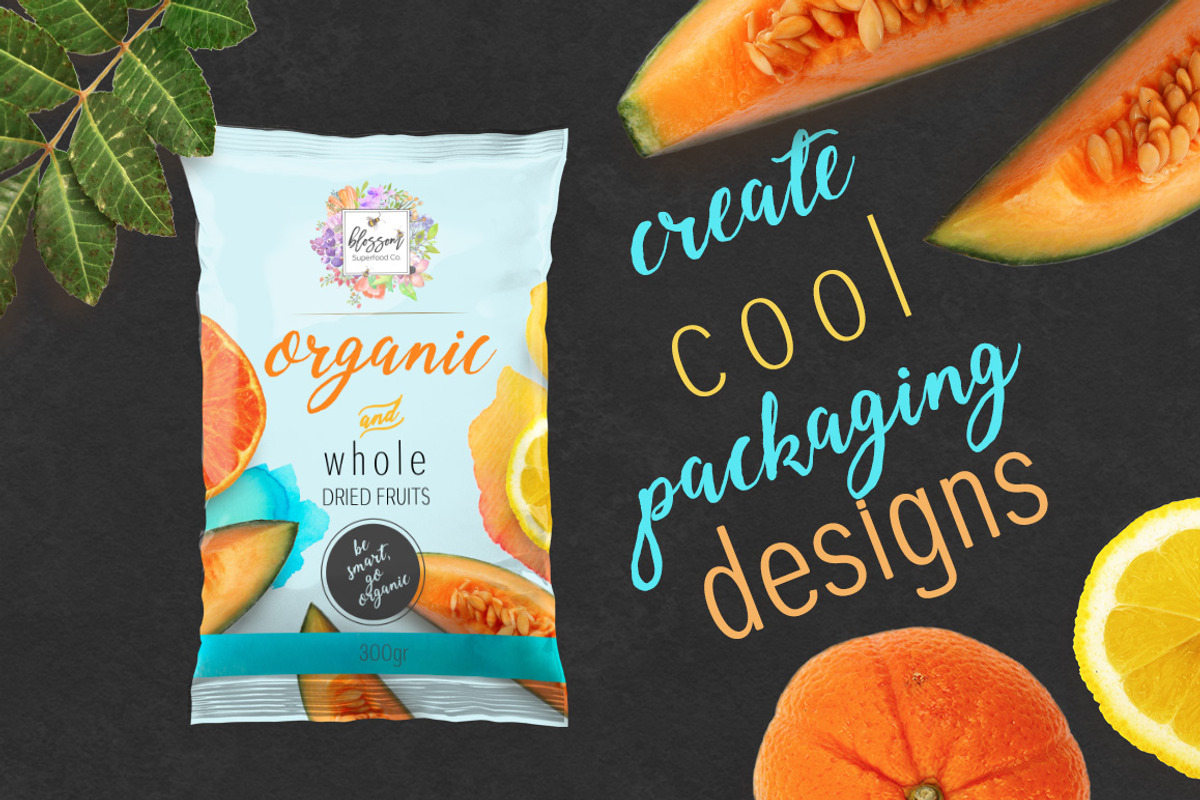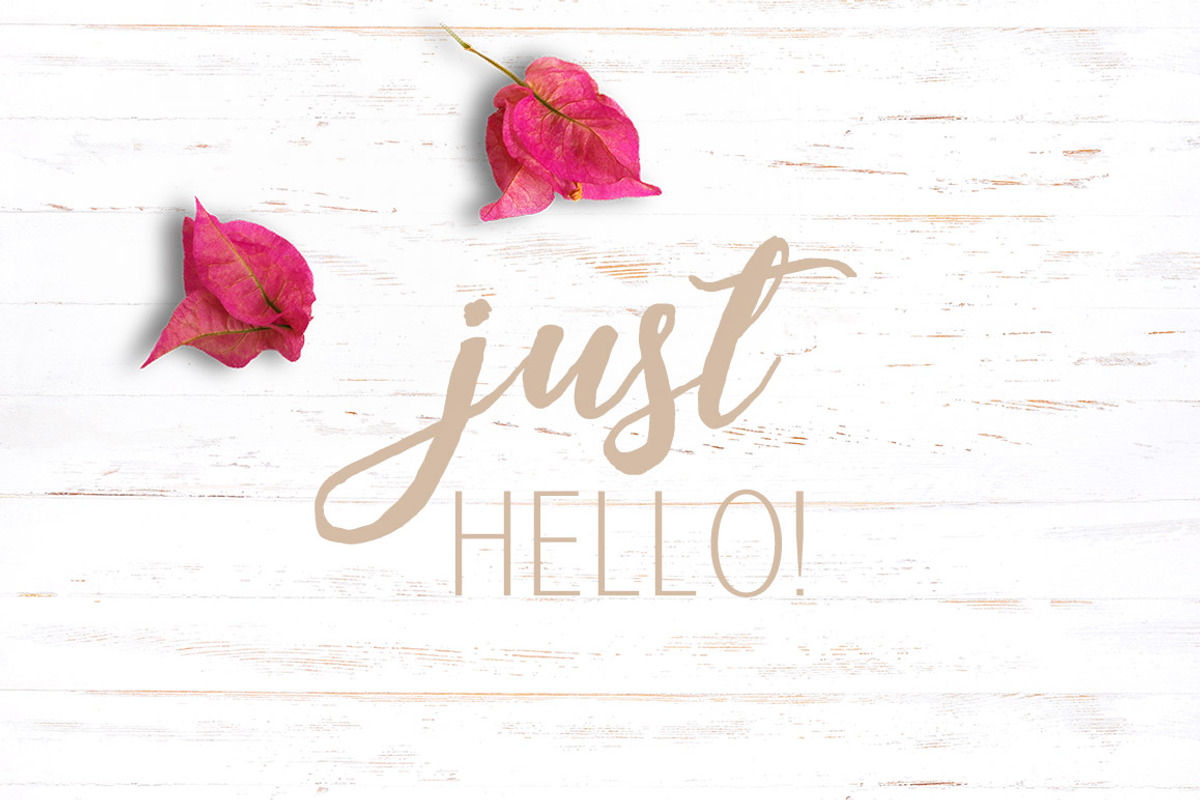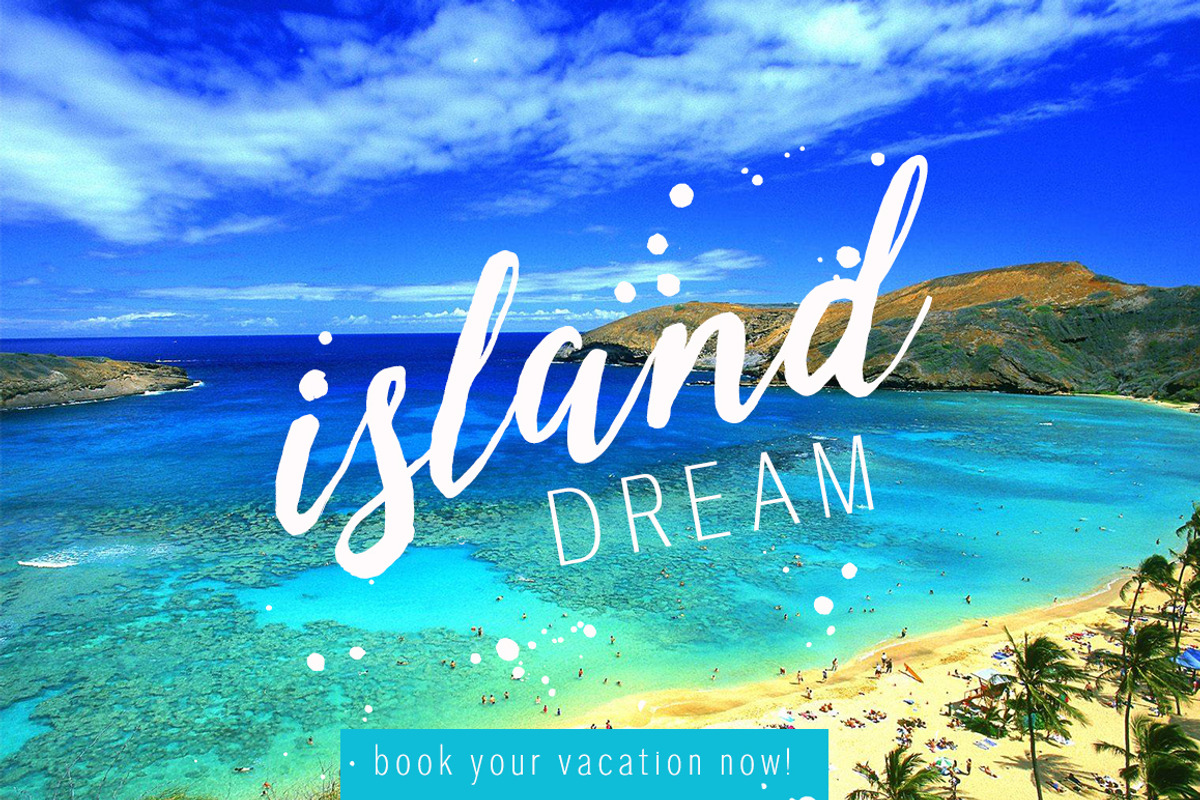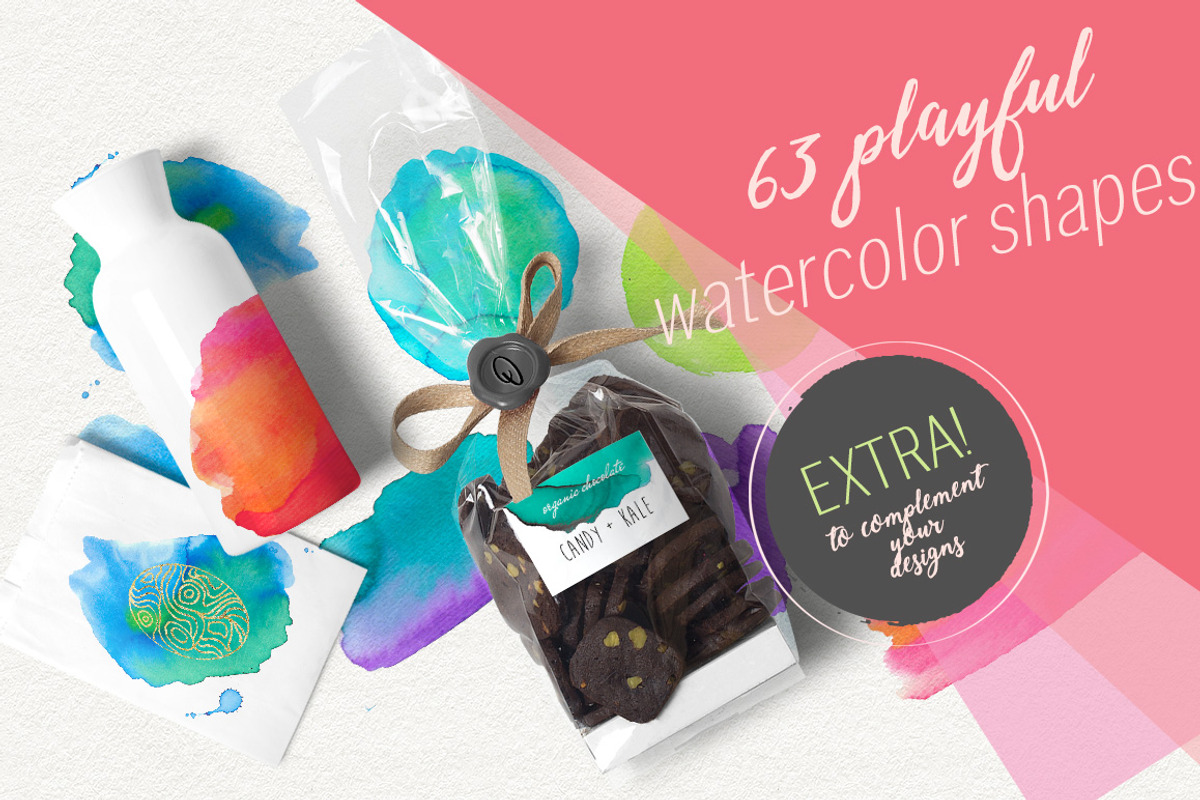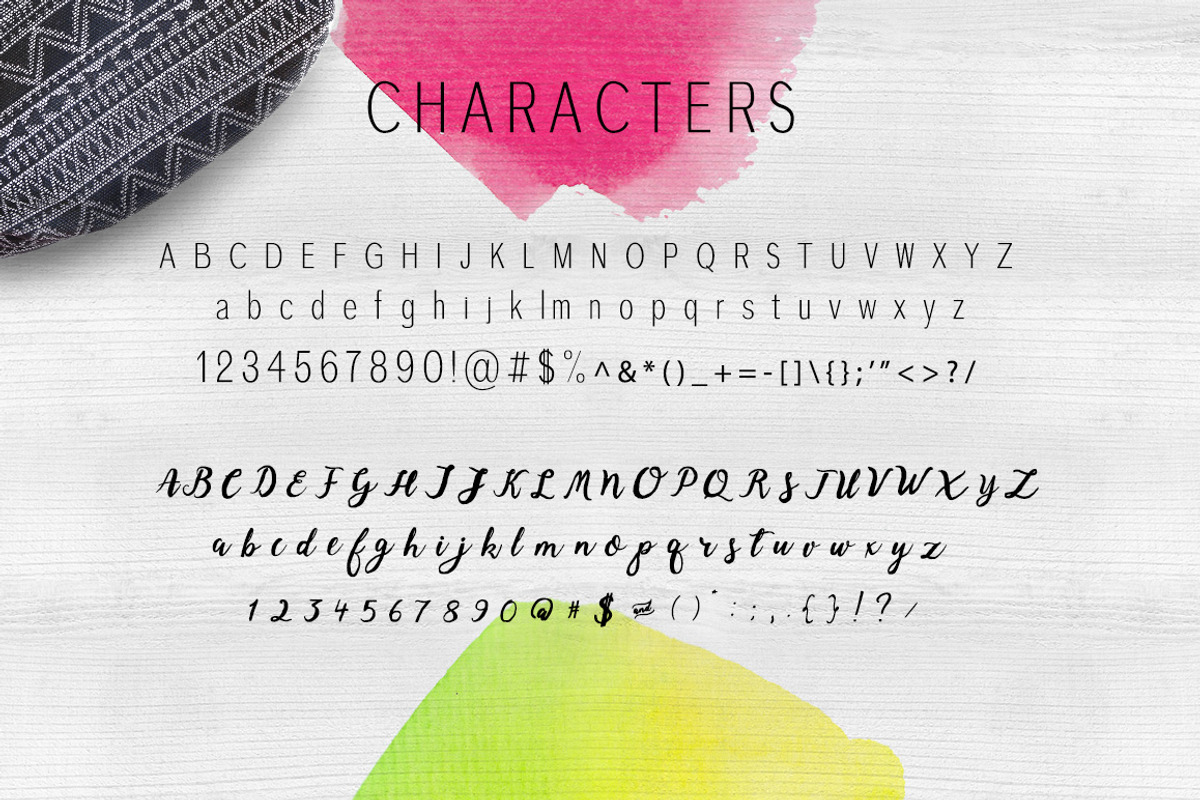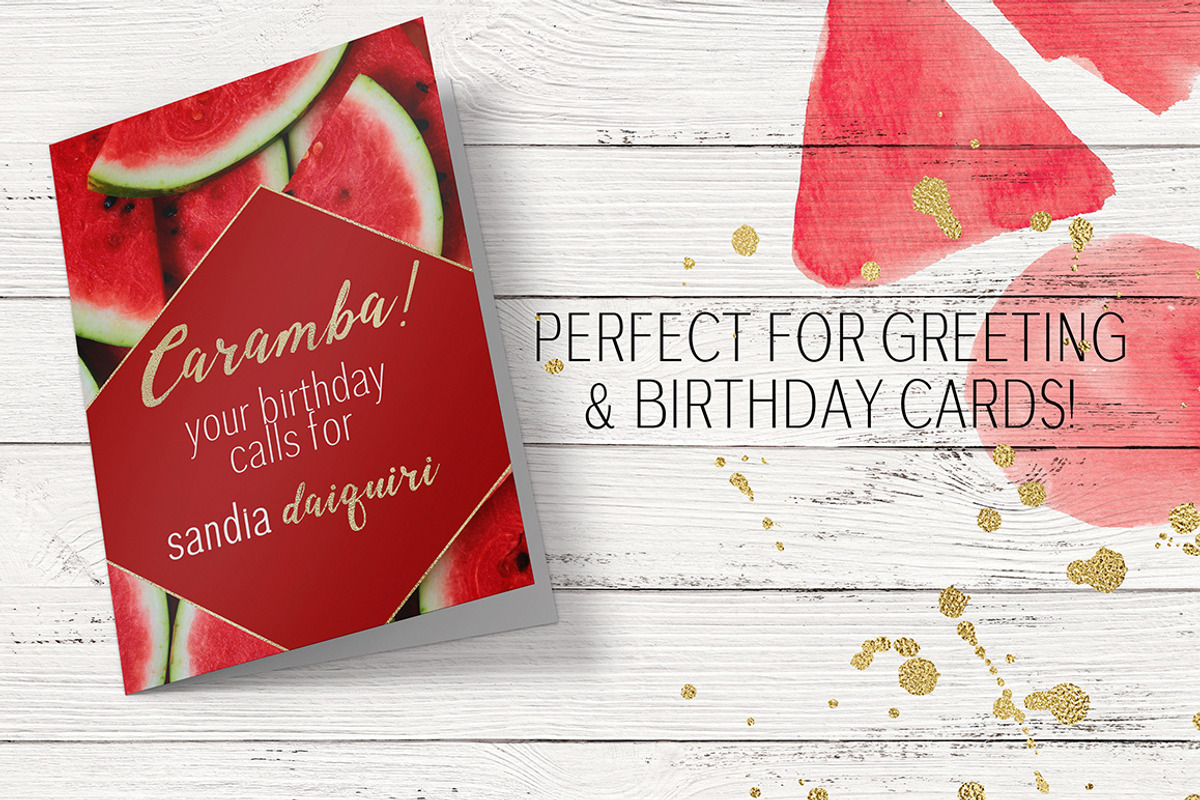
Candy Garden Font Duo + EXTRAS
Candy Garden Font Duo + EXTRAS by Isabelle Salem is a font selected for branding, posters, packaging, typography.
Why Candy Garden Font Duo + EXTRAS is worth a look
Candy Garden Font Duo + EXTRAS by Isabelle Salem fits naturally into Branding, posters, packaging, typography.